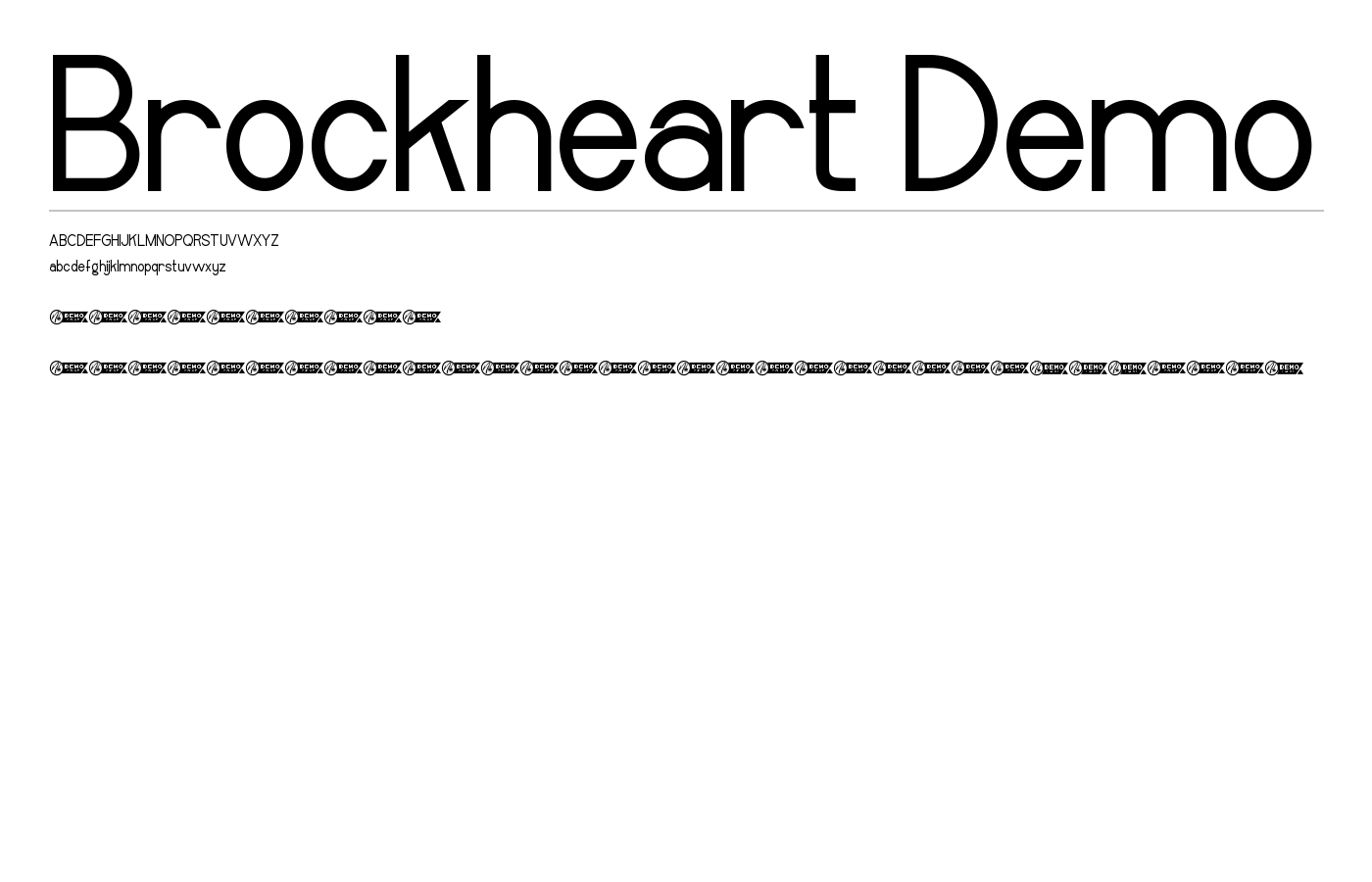
Brockheart Demo is a sleek sans serif font characterized by its modern, clean lines and geometric shapes with a medium weight and normal width. The font features a high x-height and consistent stroke contrast, giving it a sharp and contemporary feel that works well for digital and print headlines, logos, and editorial designs. Its clarity and minimalist style make it ideal for brands seeking a modern, professional, and approachable aesthetic.
Brockheart Demo Font
About Brockheart Demo Font
| Font family | Brockheart Demo Font |